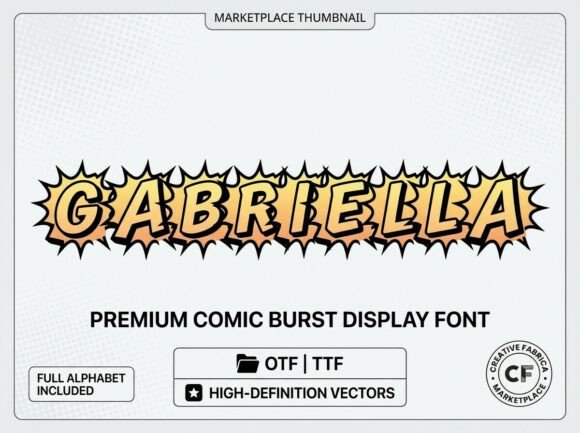
Introducing Gabriella Font: The Ultimate Decorative Display Font
Are you tired of using the same old fonts in your designs? Look no further than Gabriella Font, a stunning decorative display font that’s sure to turn heads. With its unique artistic elements and strong visual personality, this font is perfect for creators who want to break away from the ordinary and make a statement.
Gabriella Font is designed to be the center of attention, featuring intricate details and creative letterforms that are sure to make your designs stand out. Whether you’re creating a modern poster, a unique brand identity, or eye-catching social media content, this font adds an instant “wow” factor to any project. With Gabriella Font, you can create high-impact designs that demand attention and leave a lasting impression.
Gabriella Font is incredibly versatile, making it perfect for a wide range of design applications. Here are just a few examples of how you can use this amazing font:
Poster Design
Create headlines that people can’t look away from with Gabriella Font. This font is perfect for creating eye-catching posters that grab attention and communicate your message in a bold and creative way. Whether you’re promoting a concert, a sale, or a new product, Gabriella Font is sure to make your poster stand out.
Branding & Logos
Build a unique identity for creative businesses with Gabriella Font. This font is perfect for creating artistic logos that reflect the personality and values of your brand. With its intricate details and creative letterforms, Gabriella Font is sure to help you create a brand identity that stands out from the crowd.
Apparel & Merch
Gabriella Font is perfect for creating stunning apparel and merchandise designs. Whether you’re designing T-shirts, hoodies, or tote bags, this font adds a touch of elegance and sophistication to any product. With Gabriella Font, you can create designs that are both stylish and professional.
Social Media
Make your quotes and announcements stand out in the feed with Gabriella Font. This font is perfect for creating eye-catching social media content that grabs attention and encourages engagement. Whether you’re promoting a new product or simply sharing a motivational quote, Gabriella Font is sure to make your content stand out.
Packaging
Give your products a premium feel with Gabriella Font. This font is perfect for creating stunning packaging designs that reflect the quality and elegance of your product. With Gabriella Font, you can create packaging designs that are both functional and visually appealing.
Key Features of Gabriella Font
Here are just a few key features that make Gabriella Font so special:
- Unique Artistic Elements: Gabriella Font features unique artistic elements that set it apart from other fonts.
- Strong Visual Personality: This font has a strong visual personality that’s sure to make your designs stand out.
- Intricate Details: Gabriella Font features intricate details that add an extra layer of elegance to any design.
- Creative Letterforms: This font features creative letterforms that are sure to add a touch of sophistication to any design.
- Versatile: Gabriella Font is incredibly versatile, making it perfect for a wide range of design applications.
In conclusion, Gabriella Font is a stunning decorative display font that’s perfect for creators who want to break away from the ordinary. With its unique artistic elements, strong visual personality, and intricate details, this font is sure to make your designs stand out. Whether you’re creating a modern poster, a unique brand identity, or eye-catching social media content, Gabriella Font is the perfect choice. So why wait? Download Gabriella Font today and start creating stunning designs that demand attention!